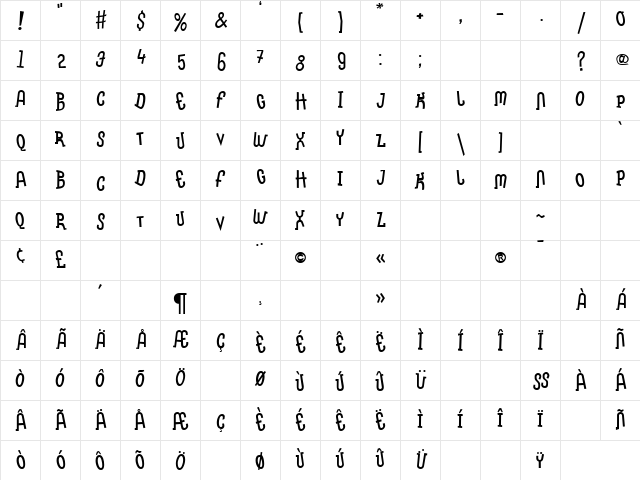
LTMethod Boiled Free Font
LTMethod Boiled
Style: Boiled
Complete LTMethod Boiled glyph index. Displaying only characters natively supported by LTMethod Boiled font.
Design Context for LTMethod
LTMethod is a composed and adaptable typeface that performs quietly and consistently across a wide range of design contexts.